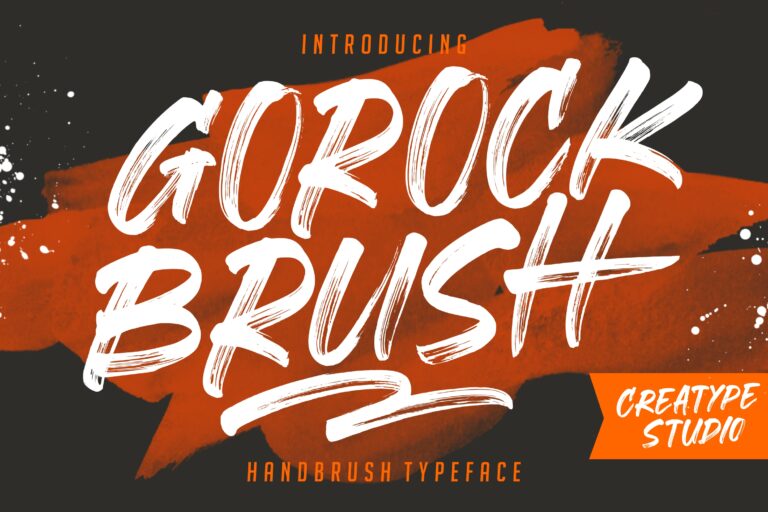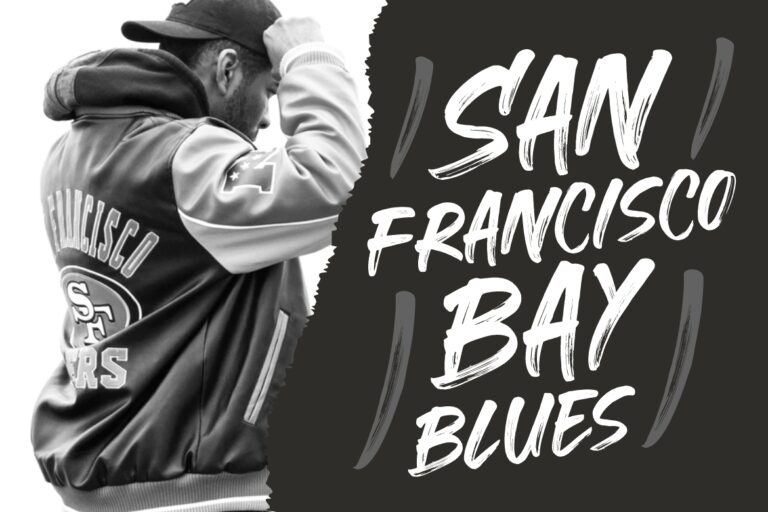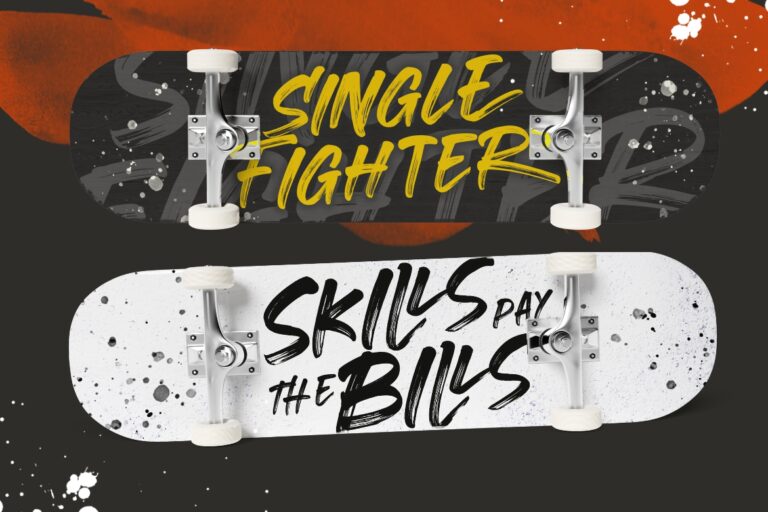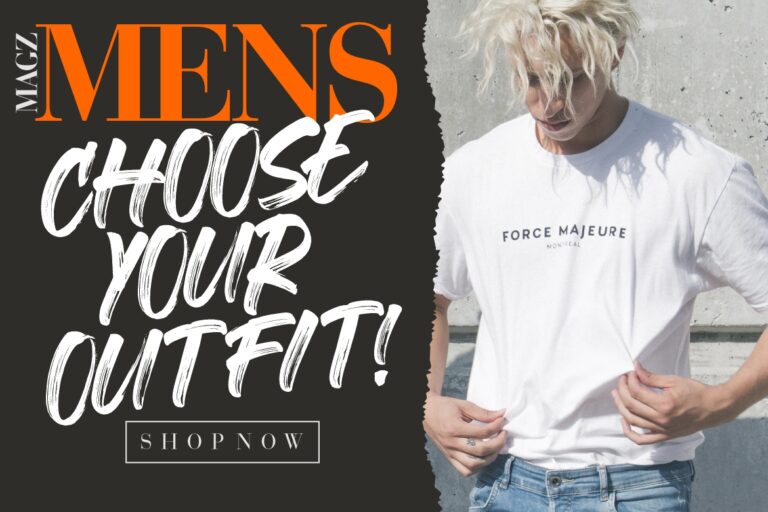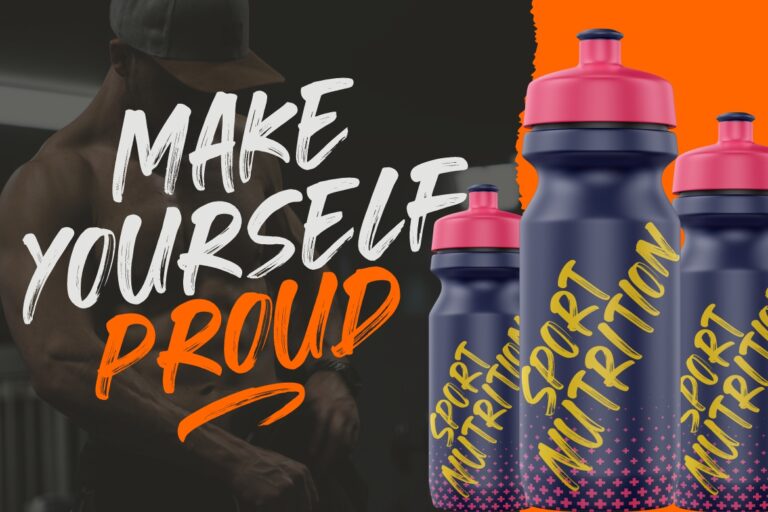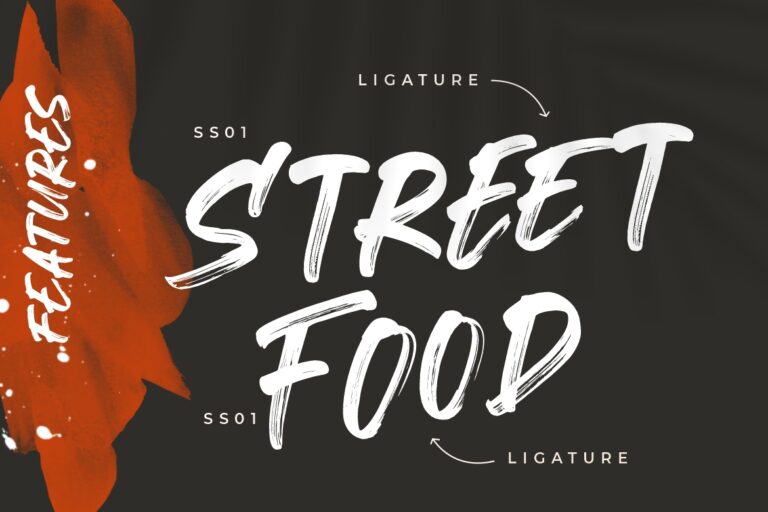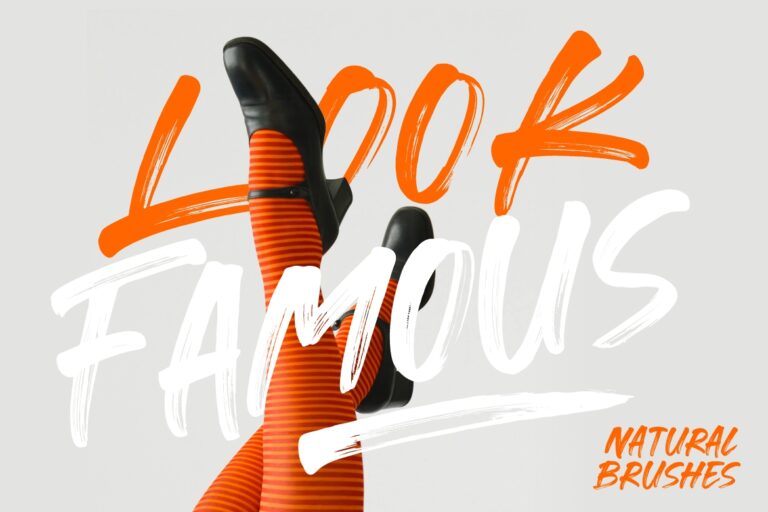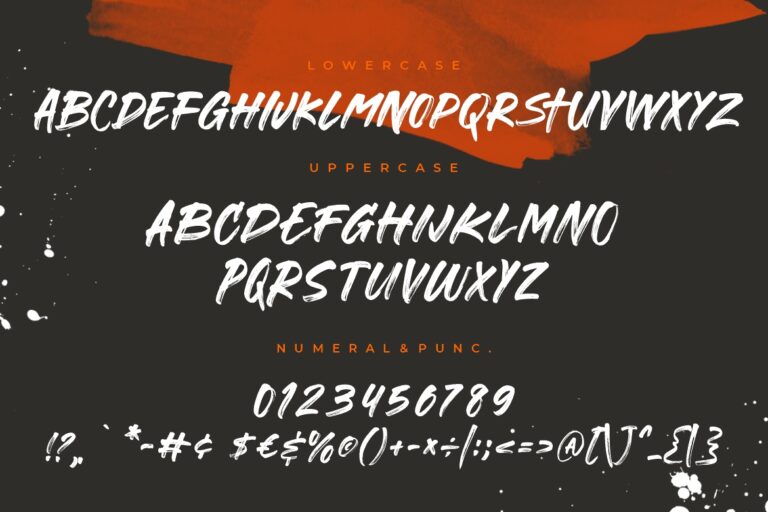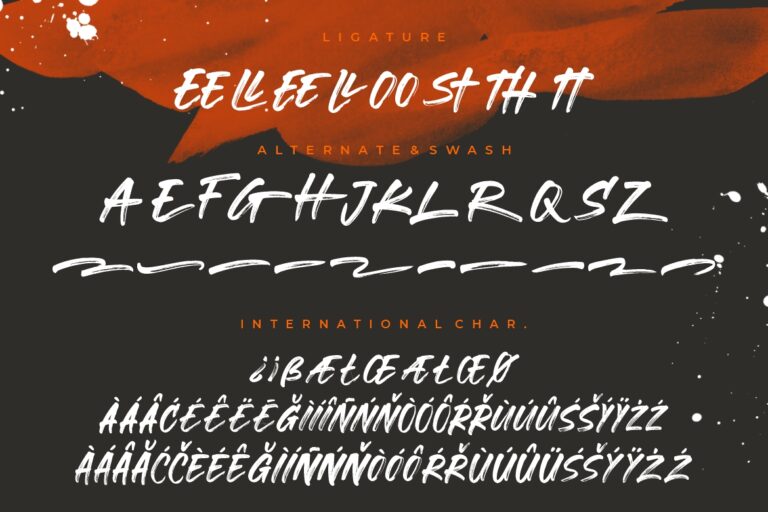
Gorock Brush Typeface
Gorock Brush a hand brush font which with a realistic style that truly looks hand painted.
Gorock Brush would perfect for photography, watermark, social media posts, advertisements, logos & branding, invitation, product designs, label, stationery, wedding designs, product packaging, special events or anything that need handwriting taste.
- Ligatur, Alternate & Swashes